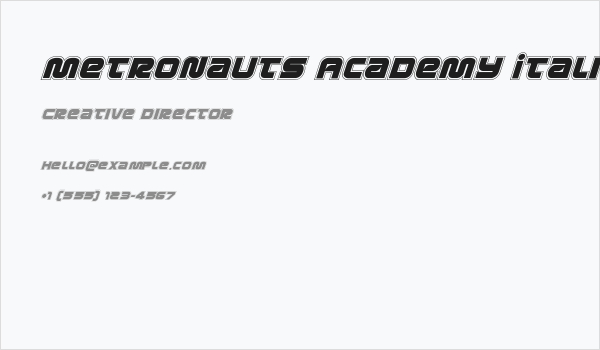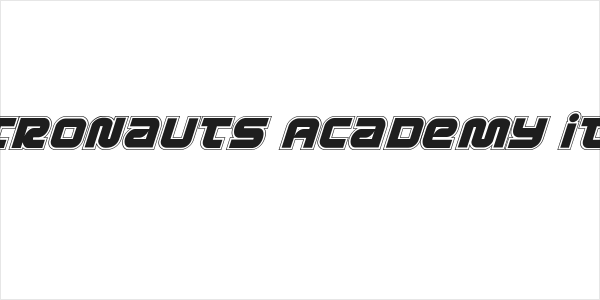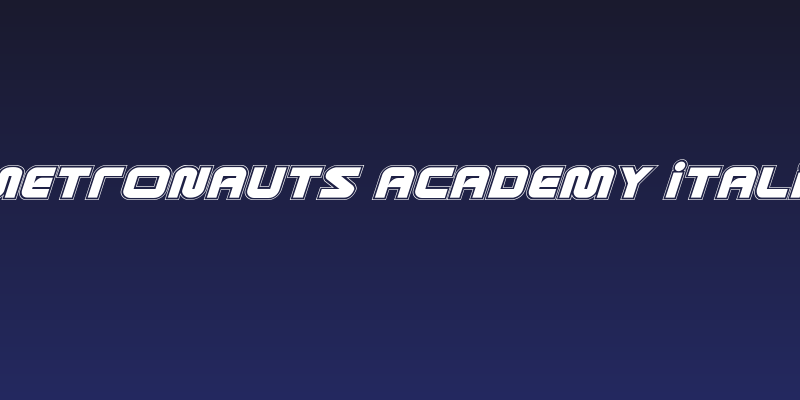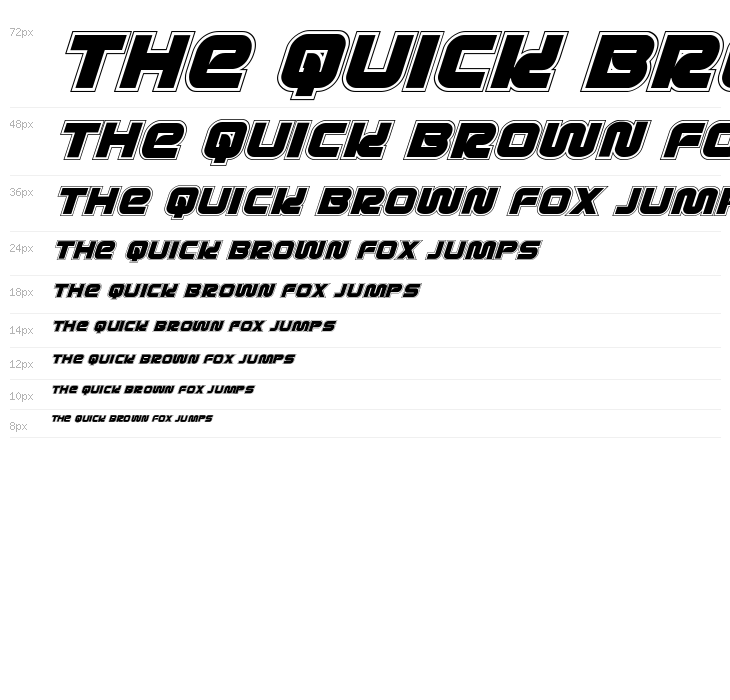
Metronauts Academy Italic Font
Metronauts Academy Italic Description
This font features a bold and dynamic style with a futuristic flair. The characters are italicized, giving them a sense of motion and speed. Each letter is outlined, creating a striking contrast between the solid interior and the bold outline. The geometric shapes and sharp angles contribute to its modern and edgy appearance. The font maintains consistent proportions, ensuring readability while adding a unique visual impact. It is well-suited for projects that require a strong and contemporary look, such as technology branding, sports team logos, or dynamic advertising campaigns.
| Use Case | Logos, Headlines |
| Proposed Projects | Ideal for technology branding, sports team logos, dynamic advertising campaigns, and modern design projects. |